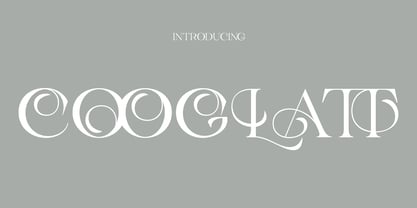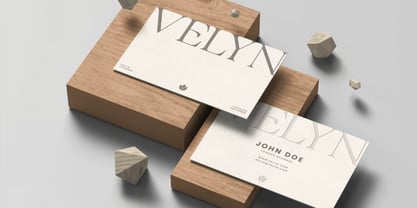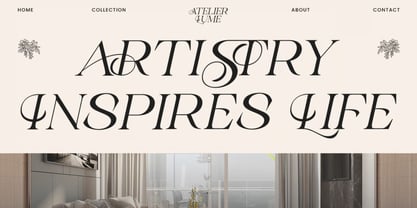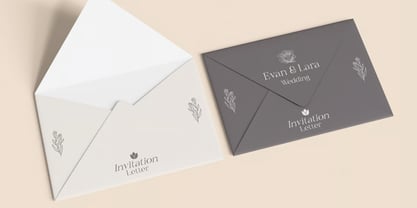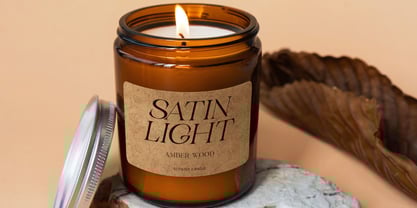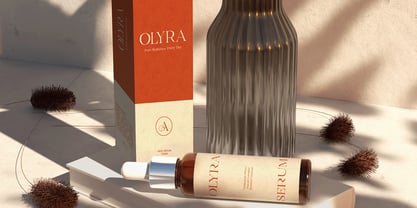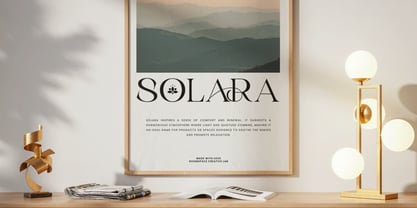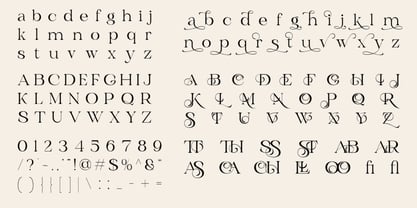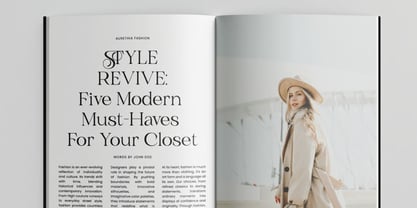
Cooglatt
by Hasnat Studio
The Cooglatt Font Family was designed by Hasnat Khan and published by Hasnat Studio. Cooglatt contains 1 styles. More about this family
Cooglatt is a stylish serif font that infuses charm, character, and sophistication into your creative projects. Featuring decorative strokes and refined letterforms, Cooglatt seamlessly blends classic elegance with modern versatility, making it ideal for various design aesthetics—from editorial layouts to luxury branding. Each character in Cooglatt is meticulously crafted with smooth contrast, graceful curves, and elegant ligatures, ensuring both visual appeal and professional readability. Whether you’re designing bold headlines or refined body text, this serif typeface offers timeless beauty with a contemporary twist. ✿ Key Features: Regular Style: A refined and balanced serif for clear, polished typography. Uppercase & Lowercase Letters: Complete alphabet set for versatile design compositions. Numbers & Punctuation: Full character set for seamless usage across projects. Elegant Ligatures: Enhance visual flow and add a touch of sophistication. Excellent Readability: Designed for clarity in both print and digital formats. Works on PC & Mac: Fully compatible and easy to install. ✿ Perfect For: Branding & Logo Design: Create timeless and confident brand identities. Editorial & Print Design: Ideal for magazines, book covers, and typographic layouts. Luxury Packaging: Adds refinement and exclusivity to high-end product designs. Headlines & Posters: Makes a bold yet elegant statement in display typography. Web & Social Media: Perfect for crafting classy, professional visual content. Elevate your typography with Cooglatt — an elegant serif font that merges artistic expression with timeless design, giving your words a voice that’s both powerful and refined.
Designers: Hasnat Khan
Foundry: Hasnat Studio